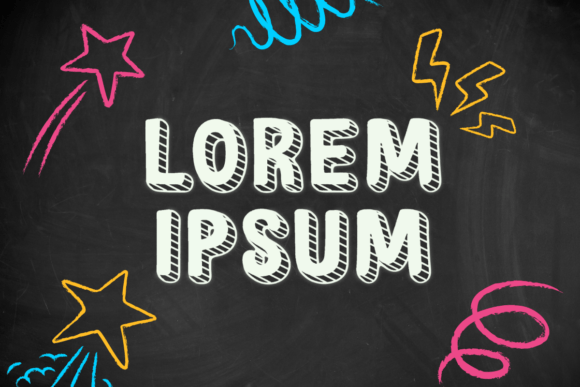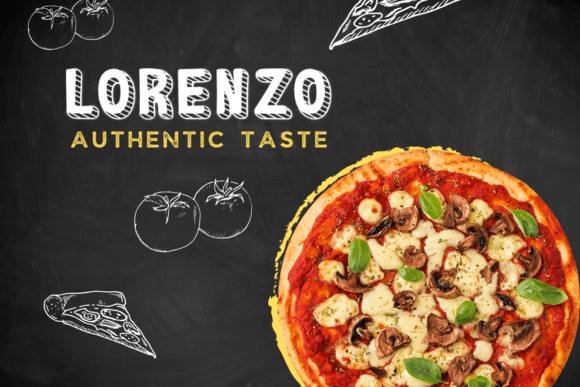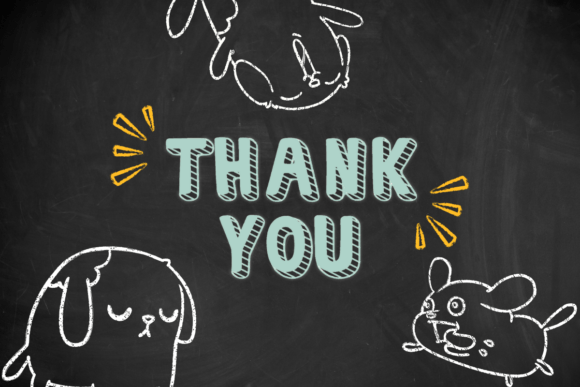
The Perfect Stroke of Creativity
You’ve spent hours brainstorming the perfect concept for your next project, and finally, it’s time to bring it to life. The blank canvas stares back at you, waiting for that spark that will set your creativity ablaze. What if I told you that the key to unlocking that spark lies in a single, magical font?
Meet the Chalky Font, a playful and trendy color font that’s about to become your new best friend. Its unique style is designed to add a touch of whimsy and personality to any project, whether you’re creating inspirational wall posters, restaurant menus, or anything in between. As a designer, you know how challenging it can be to find the perfect font to match your vision. That’s where Chalky Font comes in – a valuable addition to your design arsenal that will elevate your projects to the next level.
Key Features of Chalky Font
- Font Family: Chalky is a sans-serif font family designed for digital and print use.
- Unique Characteristics: Chalky features a unique, hand-drawn aesthetic with subtle texture and imperfections, giving it a distinctive and human touch.
- Language Support: Chalky supports a wide range of languages, including Latin, Cyrillic, Greek, and many others.
Chalky Font Review
As a designer, I’ve had the chance to work with “Chalky Font” on a recent project, and I’m excited to share my thoughts. Here’s the lowdown.
✨ One of the things I love about Chalky Font is its unique, hand-drawn feel. It’s perfect for projects that need a touch of whimsy and personality. The font is also highly legible, even at smaller sizes, which is a must for any font.
✨ Another advantage is its versatility. Chalky Font comes in a range of weights, from light to bold, making it easy to use in a variety of contexts. Whether you’re designing a logo, a poster, or a website, this font is sure to deliver.
- ⚠️ The font’s quirky feel may not be suitable for all projects. If you’re looking for something more traditional or formal, Chalky Font may not be the best choice.
- ⚠️ The font’s lines can sometimes be a bit inconsistent, which may be distracting in certain contexts.
Overall, I think Chalky Font is a great addition to any designer’s toolkit. While it may have some limitations, its unique feel and versatility make it a standout choice for many projects. With a little creativity, you can use this font to create some truly amazing designs.
Chalky Font is ideal for:
- Creating a distressed or vintage look.
- Designing educational materials, such as worksheets and posters.
- Adding a playful touch to social media graphics and marketing materials.
Experiment with layer blending modes, opacity settings, and color combinations to achieve a unique chalky effect.
Alternatives to Chalky Font for Designers
Caslon
Caslon is a serif font that mimics the style of 18th-century metal type. It’s ideal for use in formal and traditional settings, such as historical reproductions, luxury brands, and classic literature.
Compared to Chalky Font, Caslon has a more refined and elegant feel. While Chalky Font is often used for casual, handwritten text, Caslon is better suited for formal, printed materials.
Pacifico is a beautiful, cursive script font that’s perfect for use in creative, artistic projects. It’s ideal for wedding invitations, greeting cards, and other romantic or whimsical designs.
Pacifico is more elegant and refined than Chalky Font, with a softer, more flowing feel. While Chalky Font is often used for casual, informal text, Pacifico is better suited for more formal, artistic projects.
Great Vibes is a modern, script font that’s perfect for use in creative, expressive projects. It’s ideal for use in advertising, social media, and other digital applications where a fun, energetic feel is desired.
Q: Is the Chalky Font available in different styles and weights?
Yes, the Chalky Font is available in multiple styles and weights, including regular, bold, italic, and bold-italic. This allows you to create a range of visual effects and add depth to your designs. However, please note that the availability of different styles and weights may vary depending on the font vendor or distributor.